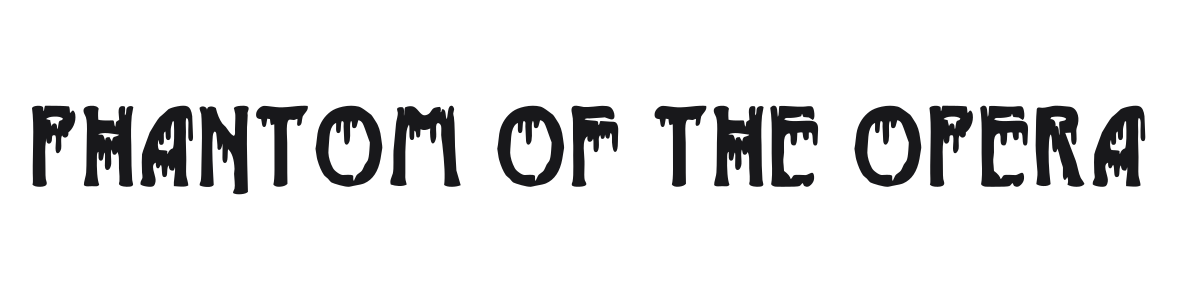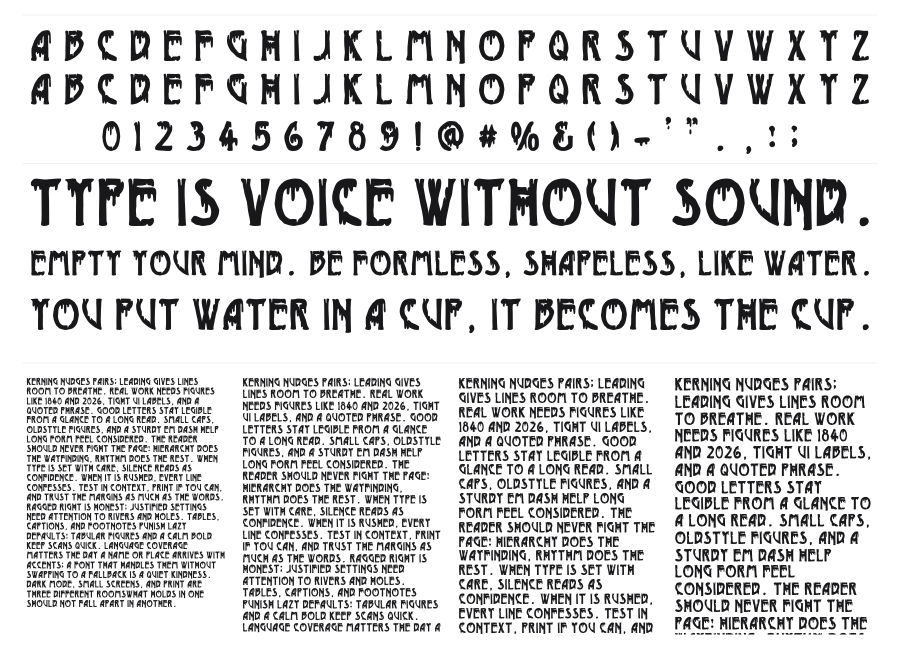
Phantom of the Opera
Phantom of the Opera is a heavy horror display font defined by its dripping, melting stroke ends that give every character a sense of slow decay. The irregular edges and gothic weight make it immediately theatrical and dark. Built for posters, titles, and anything that needs to feel genuinely unsettling.